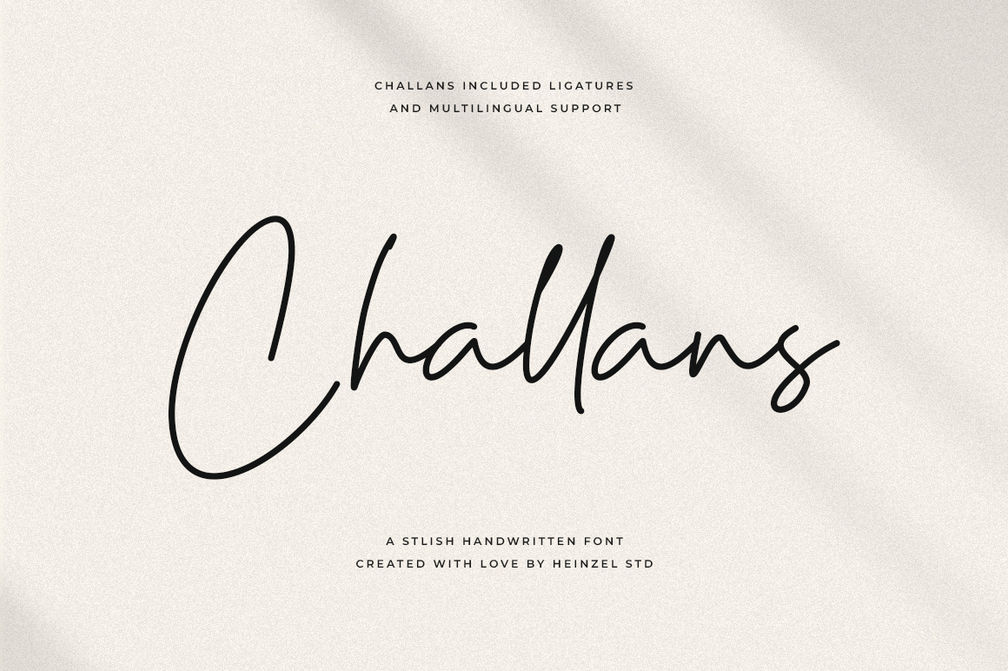
Challans Signature Script Font
Challans – Signature Script Font
Challans is a stylish signature script font that brings elegance and personality to your designs. With its smooth handwritten strokes, natural flow, and modern look, Challans is perfect for branding, logos, wedding invitations, social media posts, product packaging, business cards, and more.
This font includes ligatures and multilingual support, making it versatile and professional for both personal and commercial projects. If you’re looking for a handwritten script font that combines sophistication and readability, Challans is the ideal choice to make your design stand out.